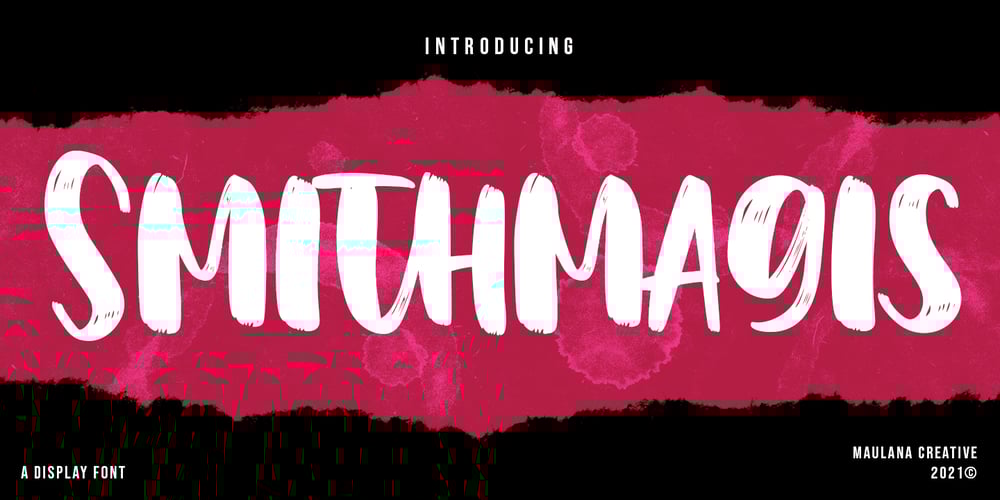
Smithmagis Font Family was designed by Gilang Maulana and published by Maulana Creative. Smithmagis contains 1 styles and family package options. Smithmagis is a handwritten brush display font. With bold brush stroke, upright and fun character with a bit of ligatures. To give you an extra creative work. Smithmagis font support multilingual more than 100+ language. This font is good for logo design, Social media, Movie Titles, Books Titles, a short text even a long text letter and good for your secondary text font with sans or serif. Make a stunning work with Smithmagis font. Cheers, MaulanaCreative